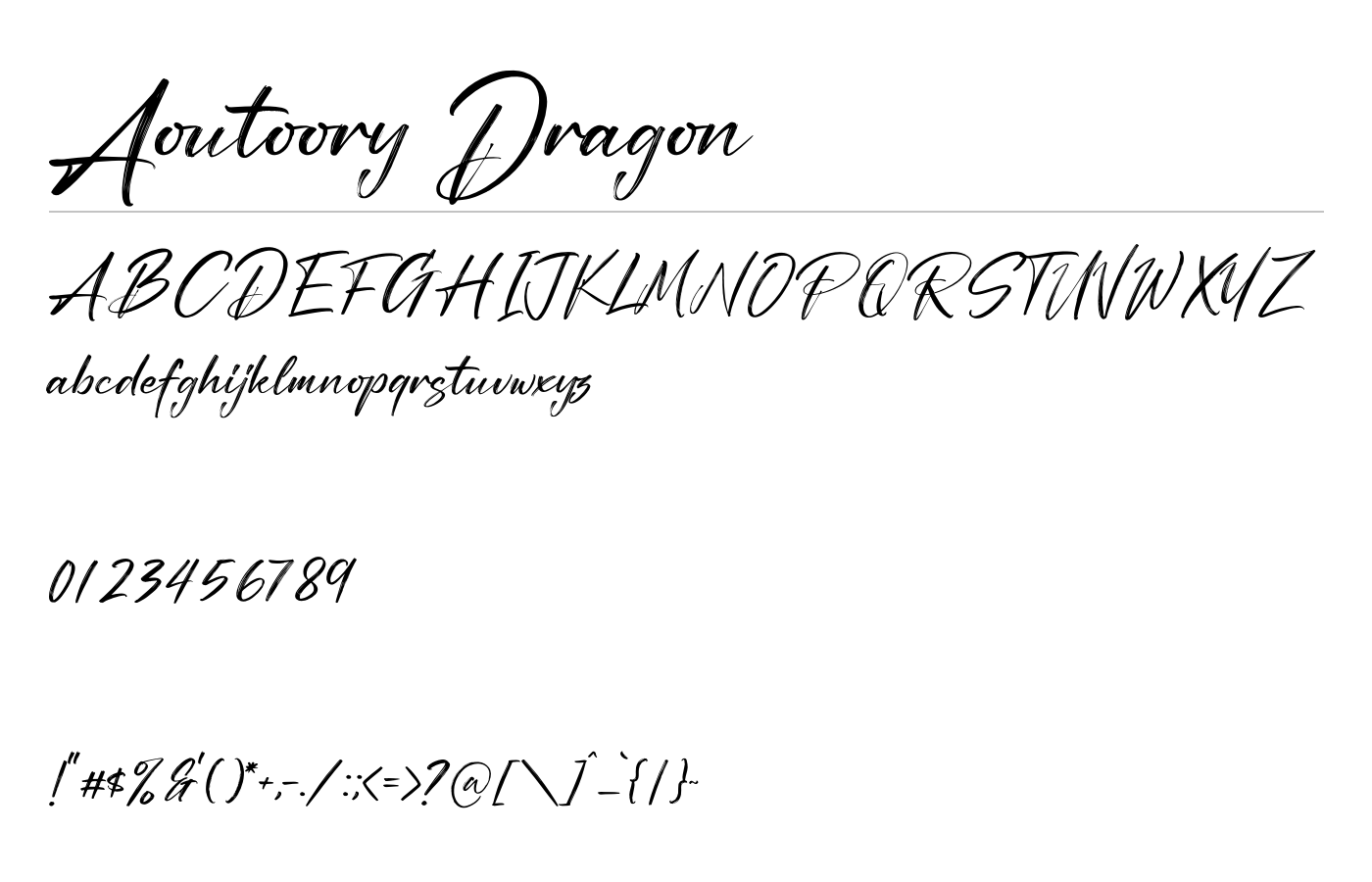
Aoutoory Dragon is a graceful, script-style font with a smooth, flowing handwriting feel. Its elegant, lightly textured strokes and slightly condensed letterforms give it a refined yet approachable personality, making it ideal for invitations, branding, and artistic projects that seek a personal, stylish touch. This font shines in creative uses where a sophisticated yet casual script can add charm and expressiveness.
Aoutoory Dragon Font
About Aoutoory Dragon Font
| Font family | Aoutoory Dragon Font |
| Designer | Nanang Jamaludin |